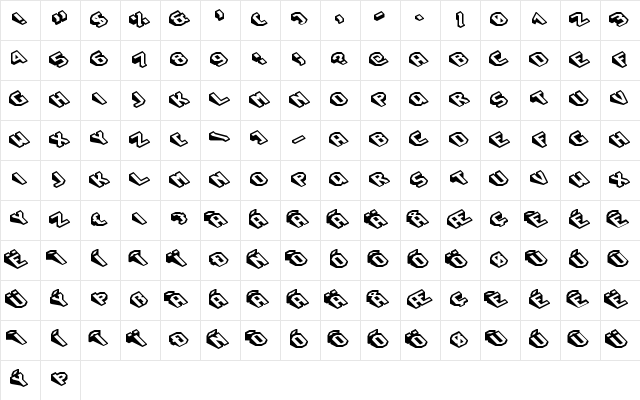
Slice Regular
Designer: CMunk
Design Context for Slice
Slice is a composed and adaptable typeface that performs quietly and consistently across a wide range of design contexts.